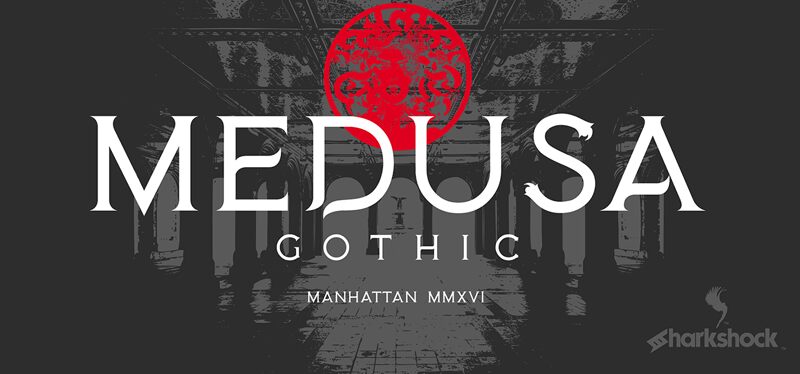
MedusaGothic
Medusa Gothic, a Romanesque serif display font crafted by Sharkshock, commands attention with its subtle yet curious leaf-like ornaments embracing the ends of the lowercase C, J, and S. This light-weight typeface blends classic Roman letterforms with undulating glyphs, creating a simple yet striking family that exudes a unique aesthetic.
The font's defining features include its liberal kerning, which gobbles up horizontal space and lends a captivating look to your projects. Alternate between all caps to ditch the leaf-like embellishments, allowing the font's core elegance to shine through.
Medusa Gothic's versatility makes it an ideal choice for a wide range of design applications, from book covers and game assets to billboards and logos. Its distinctive style will elevate your projects, ensuring they stand out and leave a lasting impression on your audience.
Designed by Dennis Ludlow